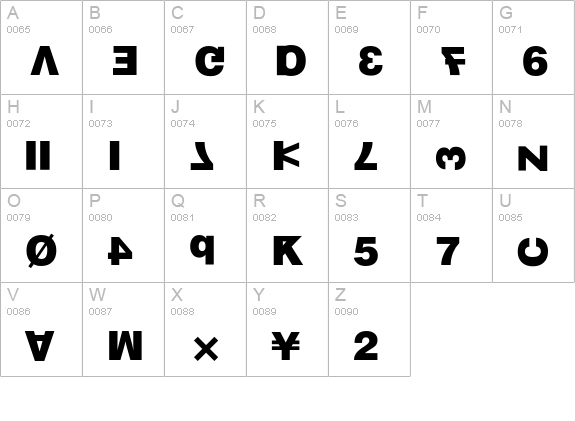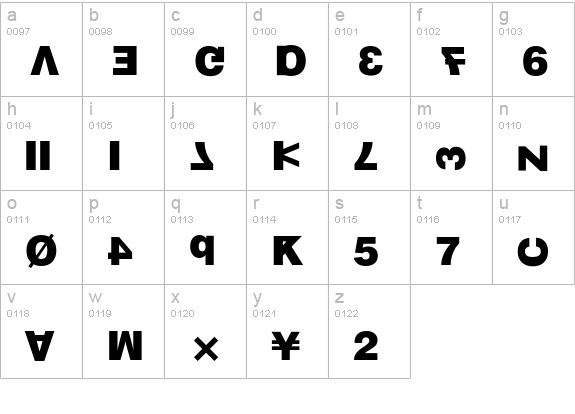
Knulla font is a sleek and modern typeface that exudes elegance and style. Its clean lines and sharp angles make it perfect for a wide range of design projects, from branding to editorial design. The font's unique character adds a touch of sophistication to any text it graces, making it a versatile choice for both print and digital applications. Best of all, Knulla font is available for free download at FontsMarket.com. This means that you can easily access this stunning typeface without breaking the bank. Whether you're a professional designer looking to add a new font to your collection or a hobbyist seeking to elevate your projects, Knulla font is a fantastic choice that won't cost you a penny. Download it today and start creating beautiful designs with this exceptional typeface.